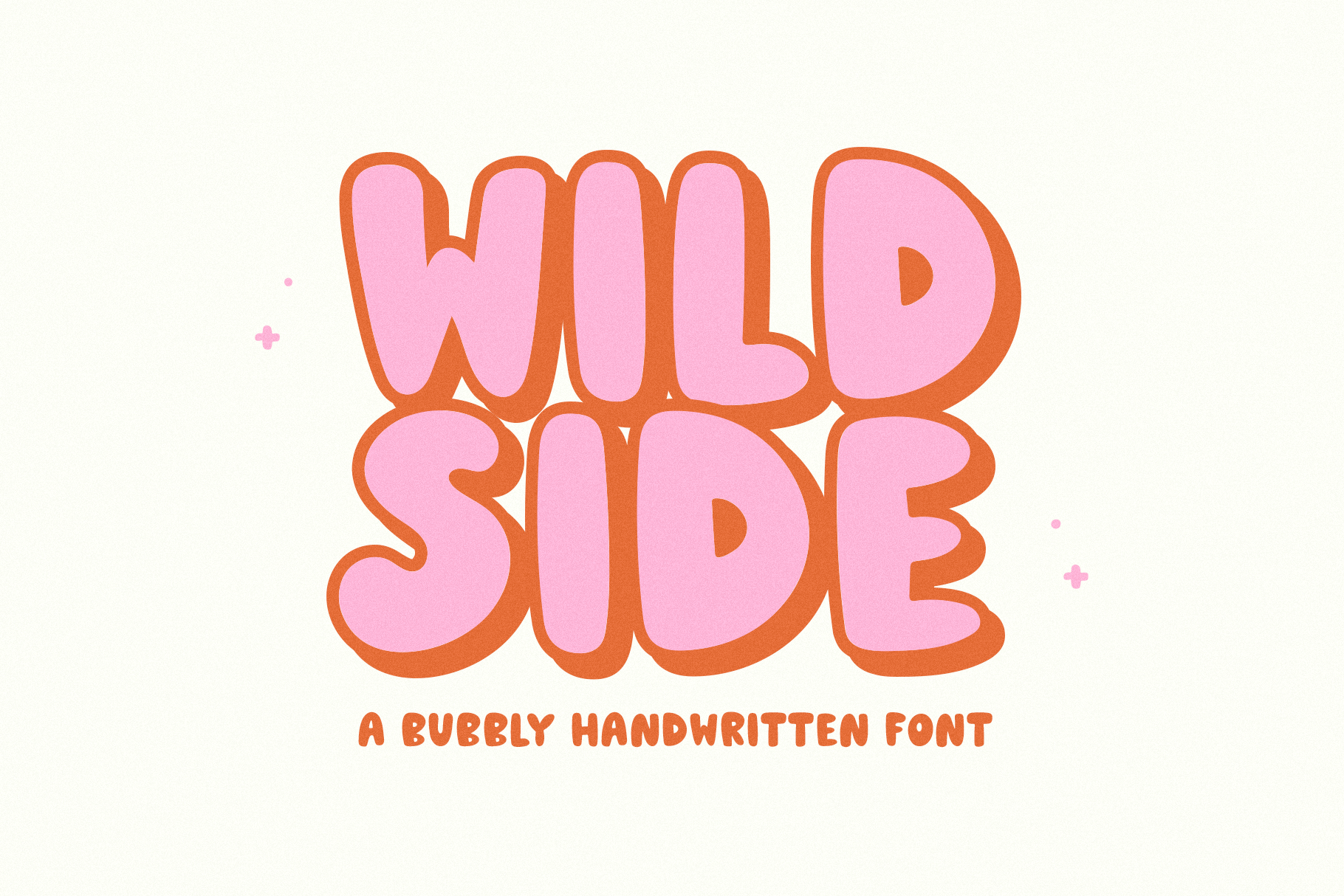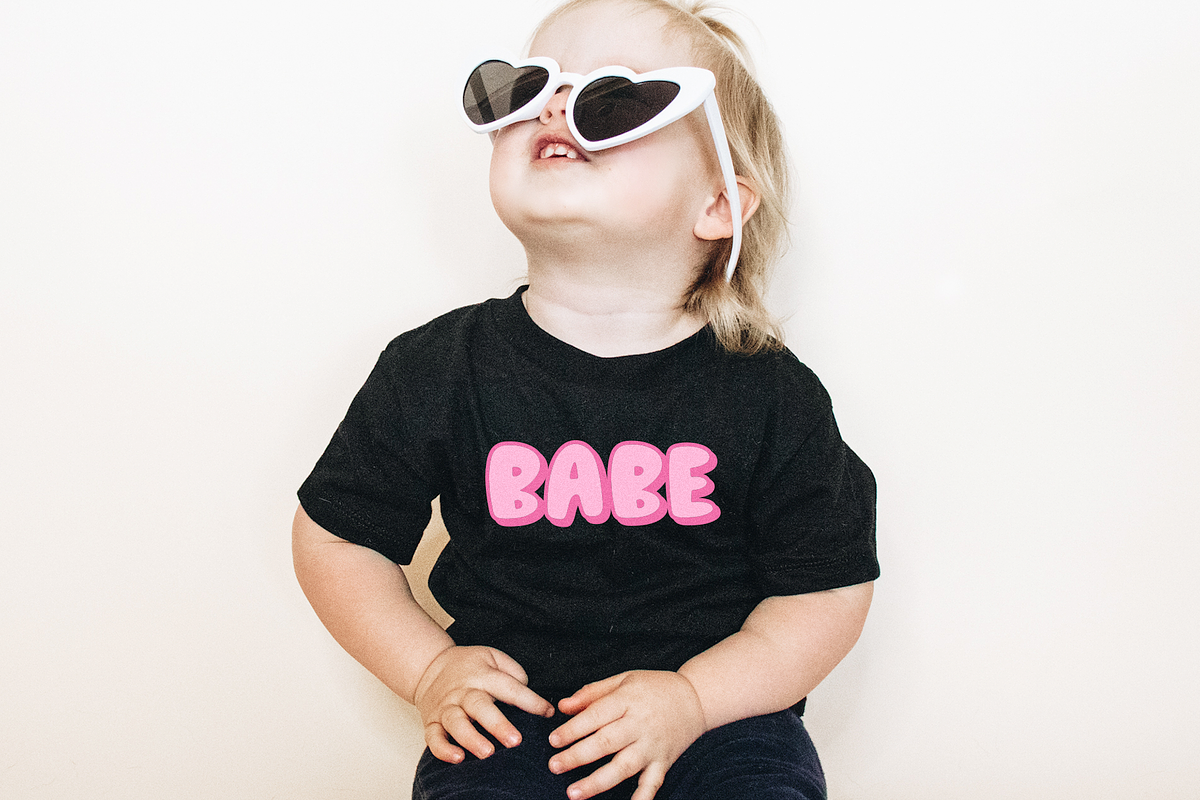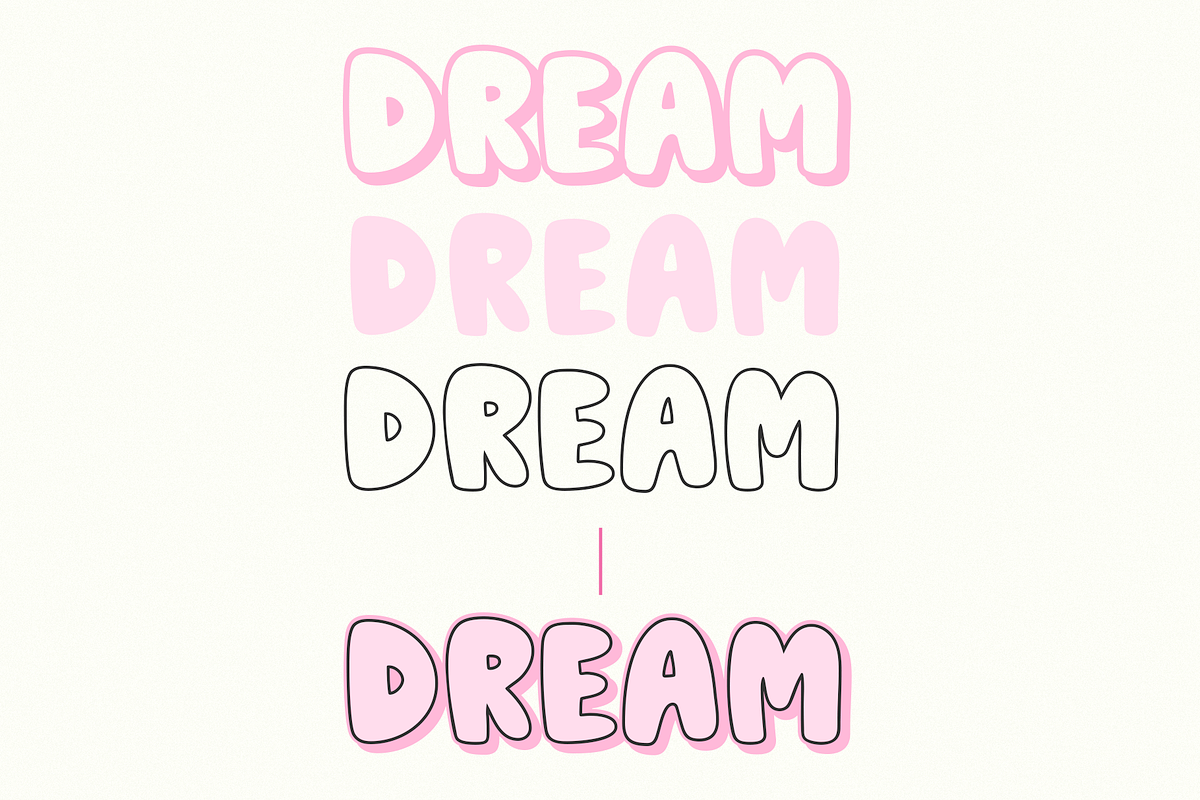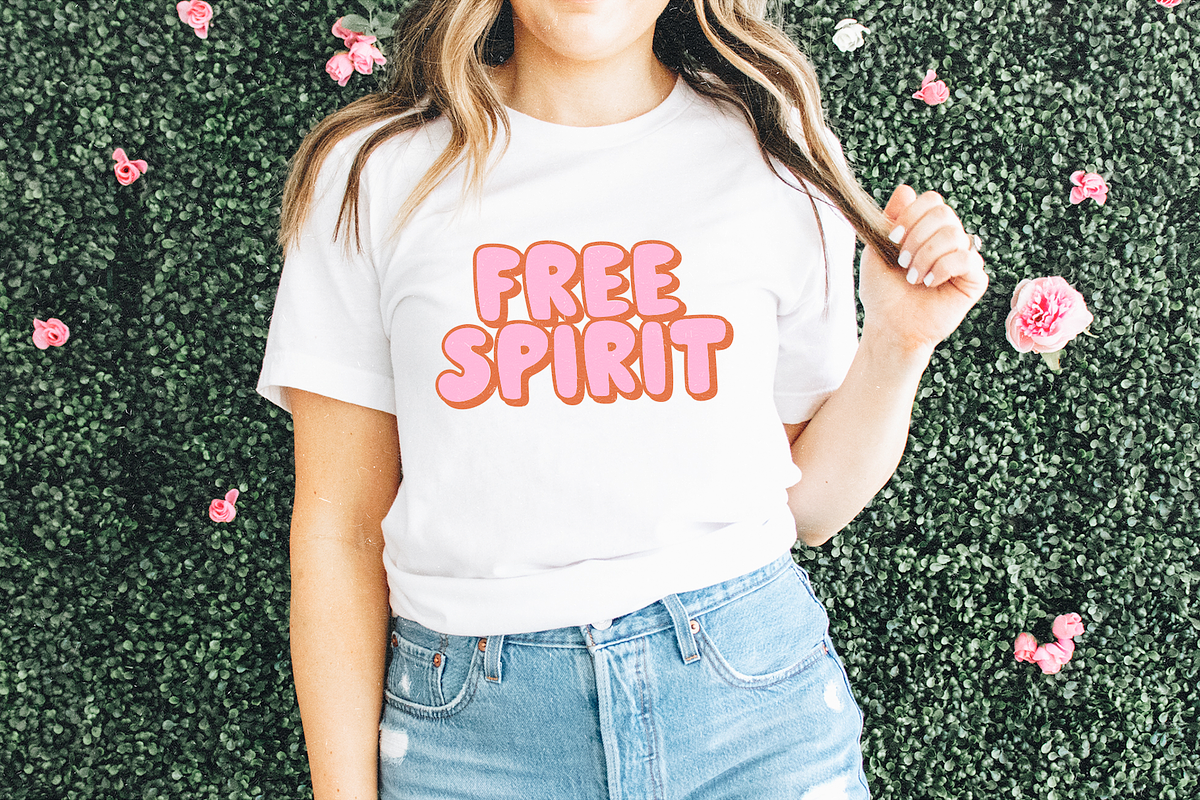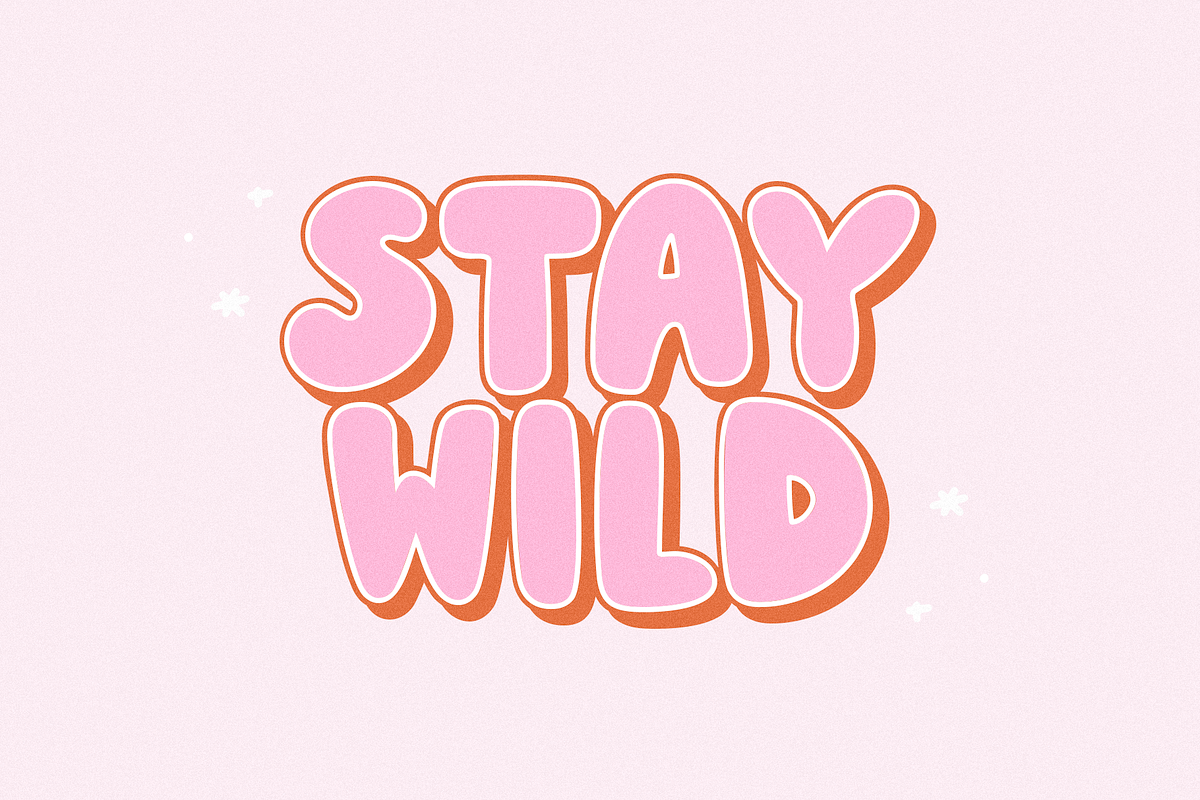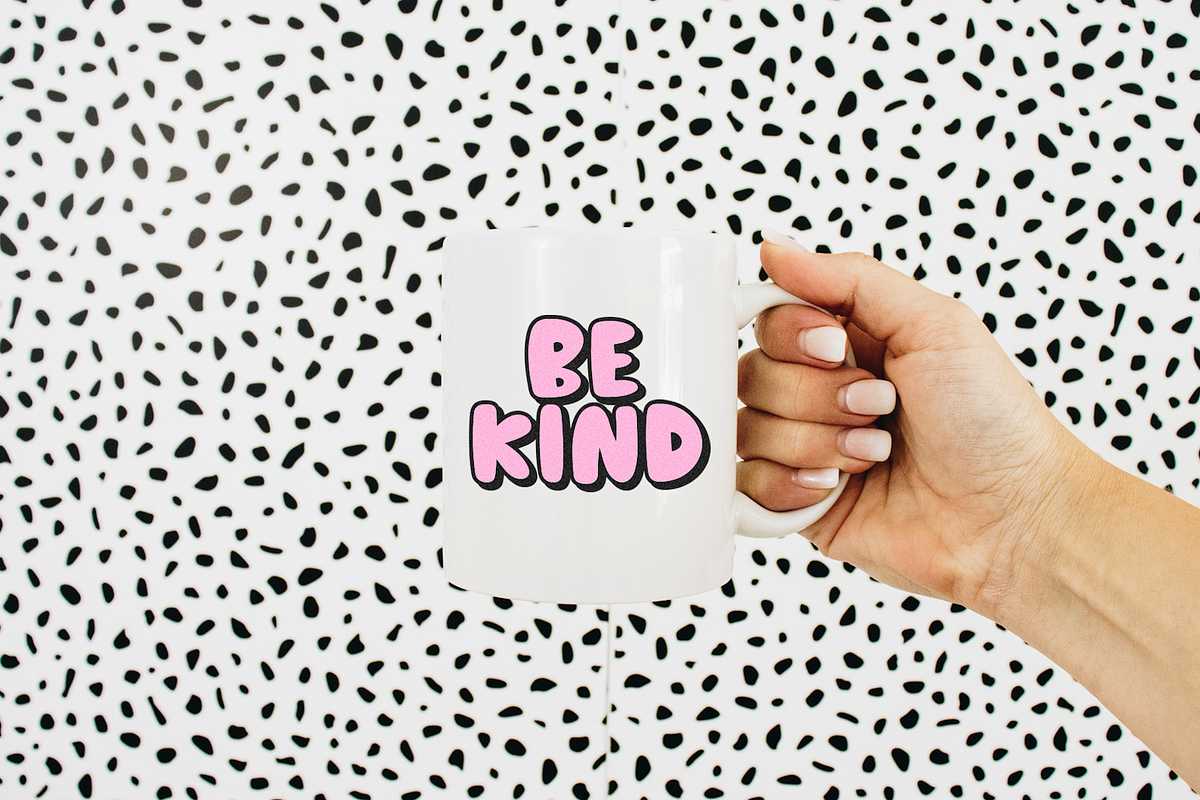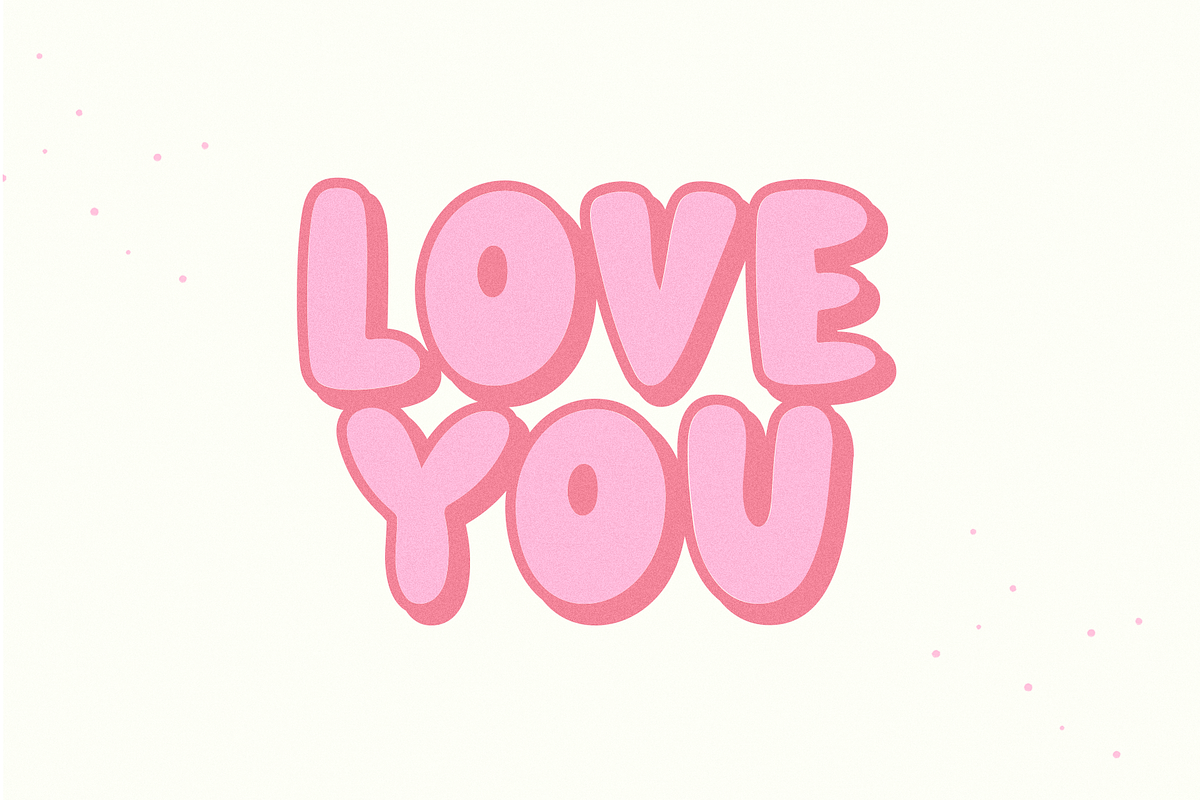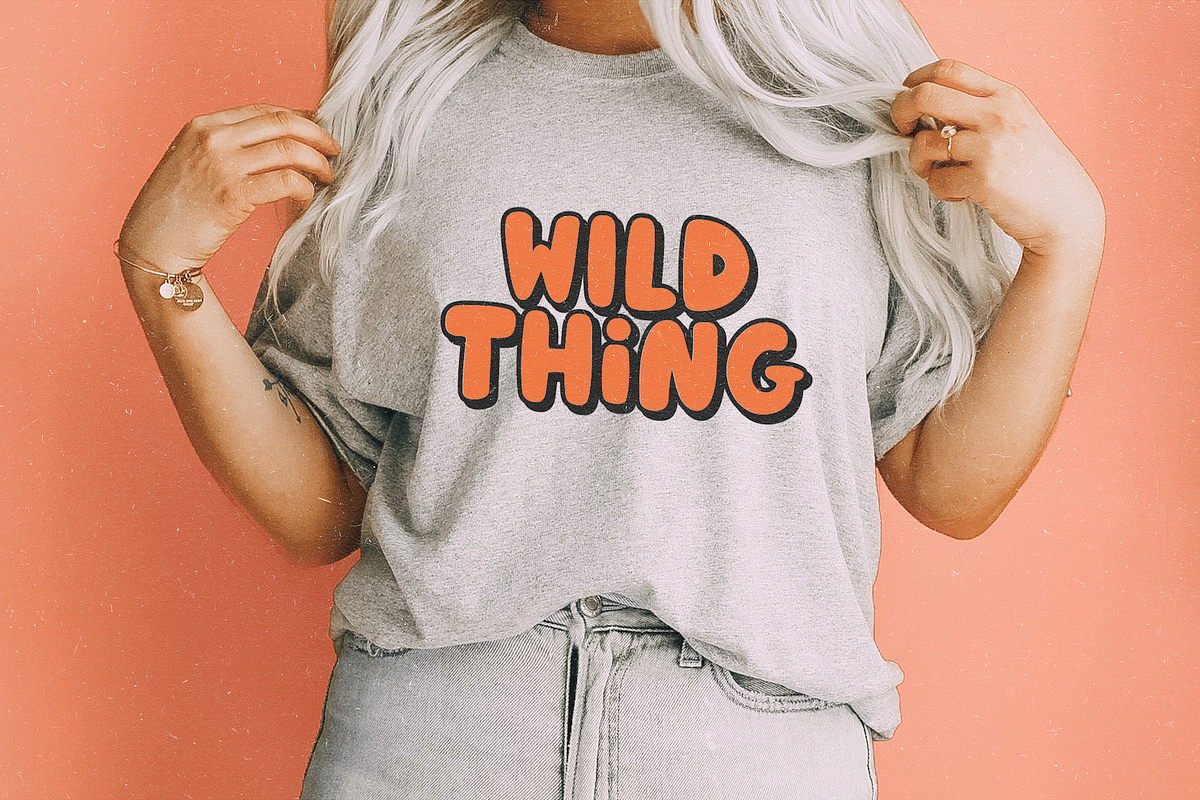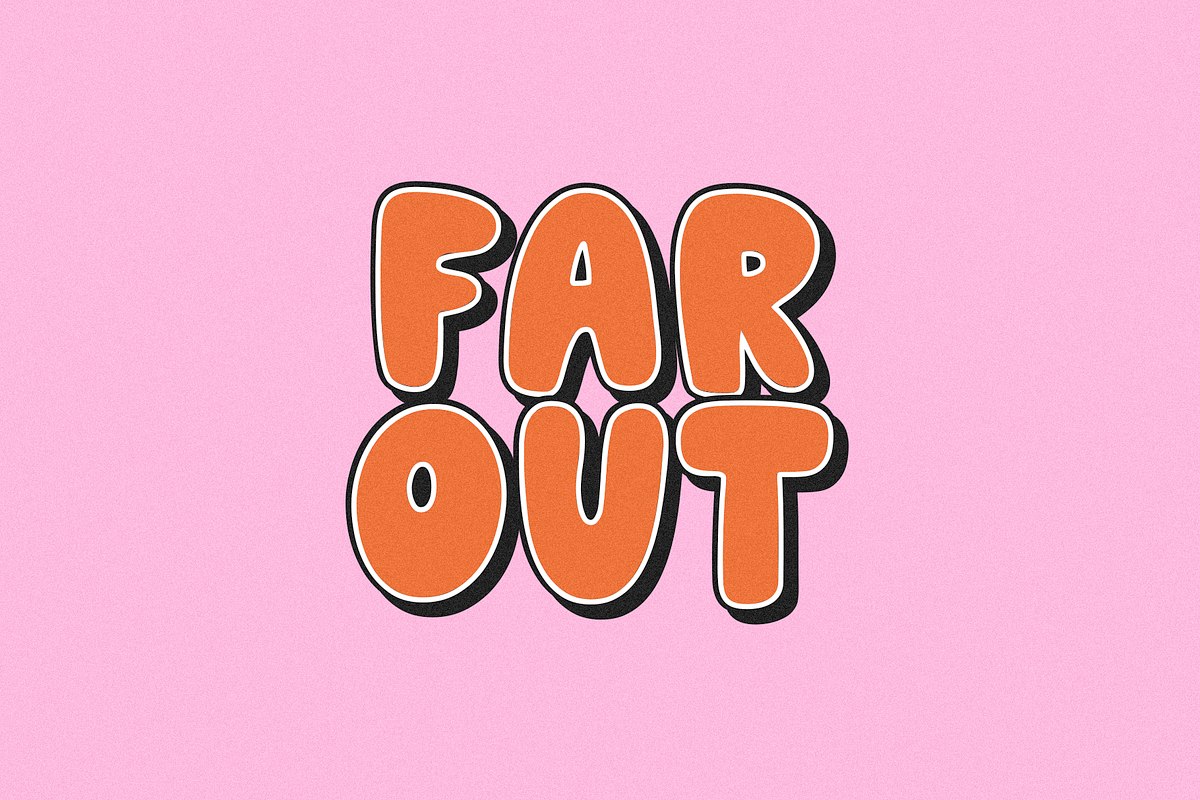
Wildside | Bubbly Handwritten Font
Wildside is a bubbly handwritten font.
Includes 3 fonts -
- regular
- shadow
- outline.
Layer these fonts to create fun and unique words and quotes!
This font is perfect for branding, shirts, logos, procreate, stickers, cricut projects, instagram, social media and more!